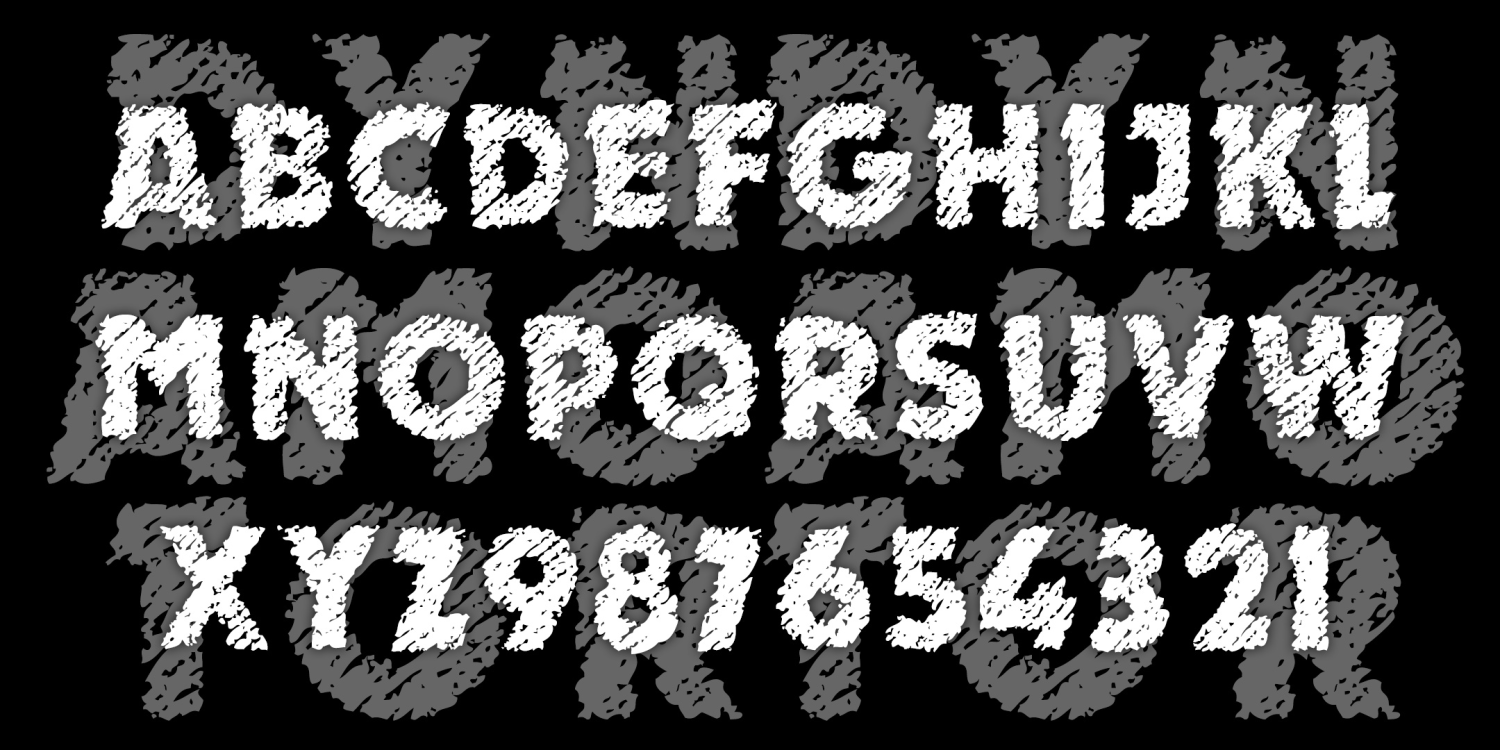
About Dynamotor
DYNAMOTOR is my hand-drawn take-off of the classic font Dynamo. Dynamotor has the texture of diagonal crayon strokes which complements the bold, active letterforms. Looks great reversed for a chalk or scratchboard look. Dynamo was designed by K. Sommer…